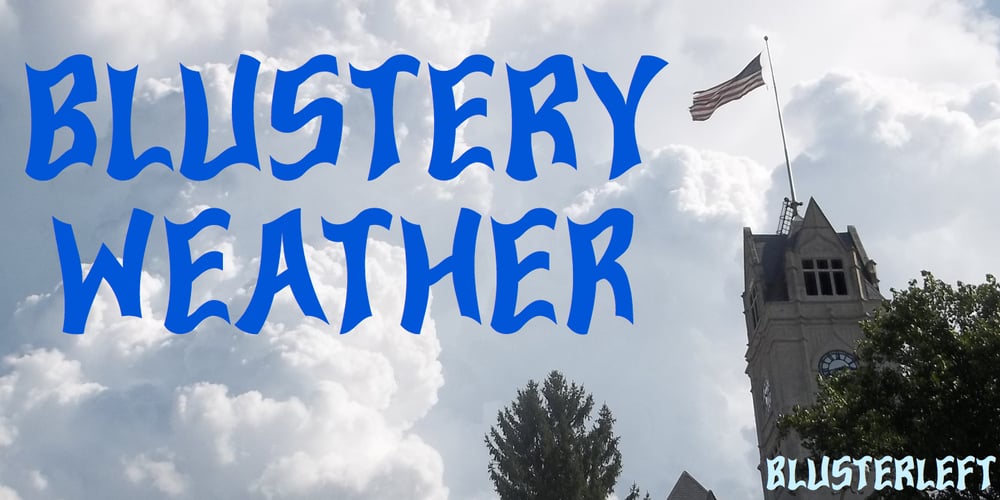
Bluster Font Family was designed by Robert Schenk and published by Ingrimayne Type. Bluster contains 2 styles and family package options. BlusterLeft and BlusterRight are distortions of the font ConcavexCaps. Both are caps only, but some of the shapes on the lower-case keys differ from the corresponding shapes on the upper-case keys. They family was named Bluster because I thought they have a wind-blown, flopping-in-the-breeze look. Others may see them as spooky or eerie, something that could be used for Halloween.